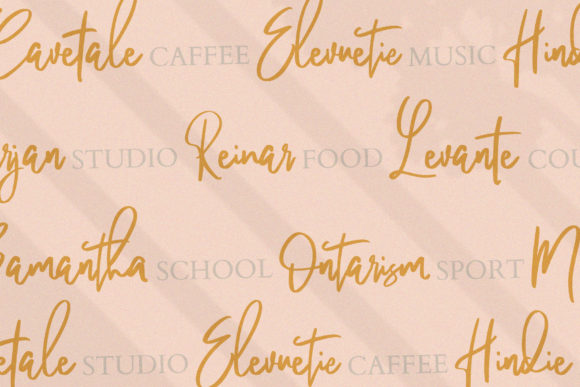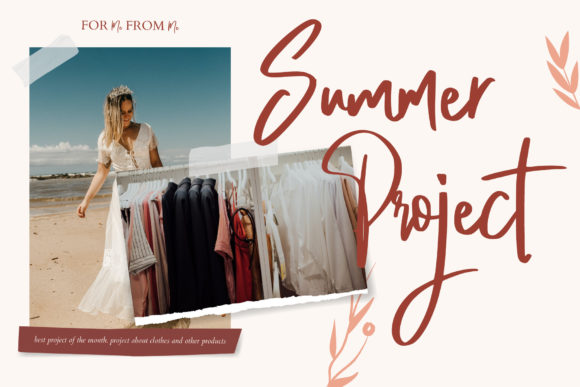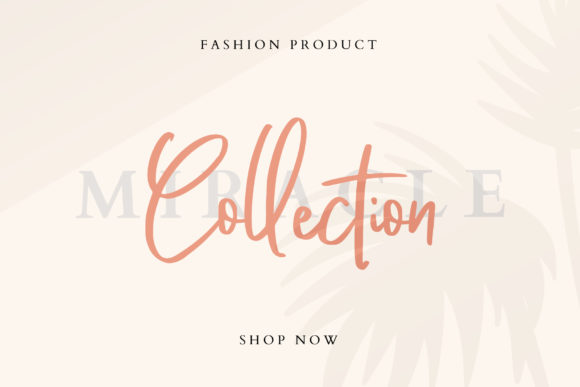
Introduction to Pandertoos Font
As a designer, have you ever found yourself staring at a blank canvas, struggling to find the perfect font to bring your creative project to life? You’ve scrolled through countless options, but none seem to capture the essence of your vision. That’s where the Pandertoos Font comes in – a lovely and delicate script font that exudes elegance and class.
With its high-quality design and PUA encoding, this font is a game-changer for designers looking to add a touch of sophistication to their work. The Pandertoos Font is perfect for those who need a beautiful and refreshing look to their designs, whether it’s a wedding invitation, a branding project, or a social media graphic. And the best part? It’s free to download, making it an invaluable design resource for creatives on a budget.
Imagine being able to add a touch of whimsy and personality to your designs with ease, thanks to the transparent background and endless customization options that come with the Pandertoos Font. Whether you’re working on a high-end campaign or a personal project, this font is sure to elevate your design to the next level.
Key Features of Pandertoos Font
- High-quality design resource suitable for creative projects, offering a unique and playful touch.
- Transparent background, making it easy to use in digital designs, graphics, and other creative projects.
- Comes in a range of sizes and resolutions, including 100px, 200px, and 300px, to cater to different design needs.
- Unique and quirky design style, setting it apart from other fonts and making it a great choice for designers looking to add some personality to their work.
- Perfect for use in digital design, graphic design, and other creative projects where a high-quality, unique font is required.
Honest Review: Pandertoos Font
I recently had the chance to experiment with the Pandertoos Font, and I must say it’s been a game-changer for my creative projects. As a designer, I’m always on the lookout for high-quality design resources that can help elevate my work.
- ✨ The Pandertoos Font is incredibly versatile, making it perfect for a wide range of creative projects, from branding and marketing materials to editorial content and digital designs.
- ✨ The font’s transparent background allows for seamless integration with any design element, giving me more flexibility when it comes to designing complex layouts.
However, I did encounter a few limitations while working with the Pandertoos Font.
- ⚠️ The font’s limited character set might be a concern for designers who require a wider range of glyphs for their projects.
- ⚠️ The font’s bold weight could be more nuanced, as it can sometimes appear too heavy-handed.
Overall, I’m impressed with the Pandertoos Font, and I would highly recommend it to designers who are looking for a high-quality, versatile font for their creative projects.
Pandertoos Font
Using Pandertoos Font in Creative Projects
With Pandertoos Font, you can add a unique touch to your creative project. Use it in your designs for Canva, Adobe Photoshop/Illustrator, or PowerPoint/Word to create visually appealing and professional-looking materials. Since the font has a transparent background, you can easily combine it with other design elements.
Getting the Most Out of Pandertoos Font
To get the most out of Pandertoos Font, experiment with different font sizes, colors, and combinations. Use it for headings, titles, or body text to add a creative twist to your designs. You can also use it to create eye-catching graphics and logos.
Pandertoos Font is ideal for various creative projects, including:
– Social media graphics and posts
– Marketing materials, such as brochures and flyers
– Web design elements, such as headings and buttons
– Presentation slides and reports